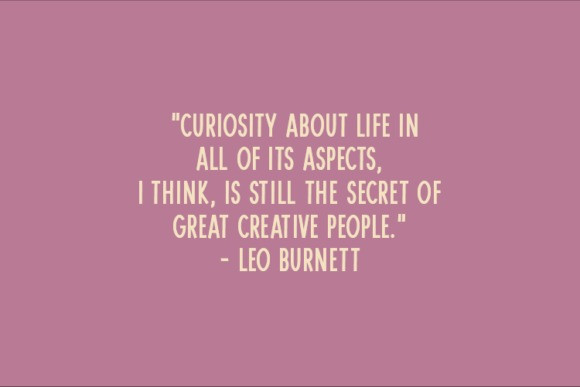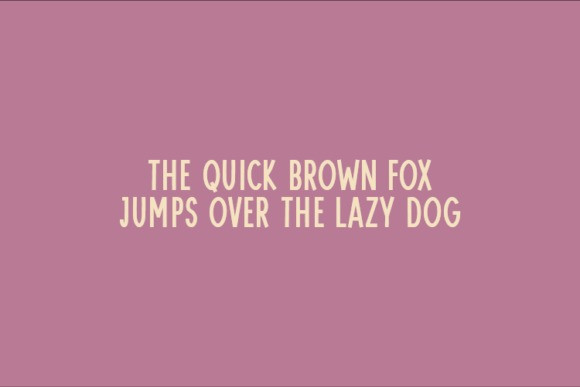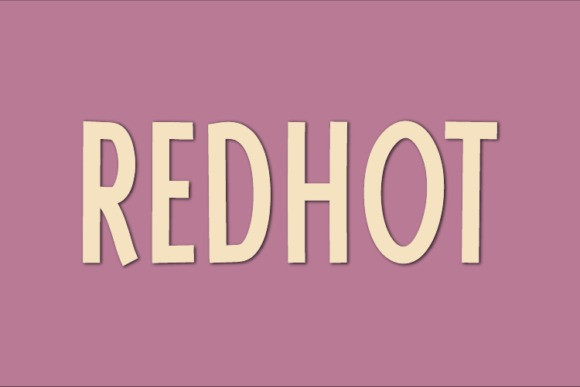
Redhot Font
Redhot Font is a modern and neat handwritten font. Contemporary and fresh, it is perfect for any design you wish to create. Add it to your creative projects and make them outstanding!